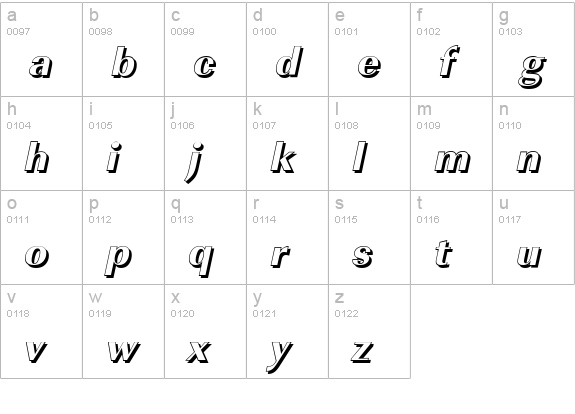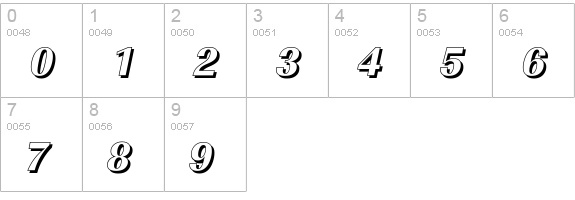
ImperialSh-Xbold-Italic is a distinctive, italic variant in the ImperialSh typeface family \xE2\x80\x94 well suited to design and typography projects.
ImperialSh-Xbold-Italic is a stunning and elegant font that exudes sophistication and class. Its bold and italicized design adds a touch of luxury to any project, making it perfect for high-end branding, editorial design, and more. The sharp serifs and clean lines of this font give it a timeless appeal that is sure to impress. What's even better is that ImperialSh-Xbold-Italic is available for free download at FontsMarket.com. This means you can easily access this premium font without any cost, making it a valuable addition to your font library. Don't miss out on the opportunity to elevate your designs with the exquisite beauty of ImperialSh-Xbold-Italic. Download it now and bring a touch of sophistication to your projects.